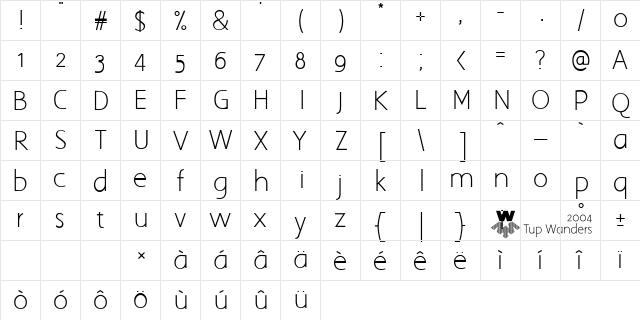
Aaargh Normal
| Designer | Tup Wanders |
Design Context for Aaargh Typeface
Aaargh offers clean, dependable letterforms without strong stylistic allegiance, making it a practical choice for designers who need flexibility.